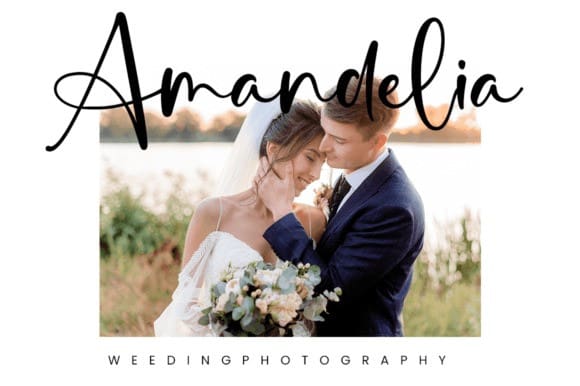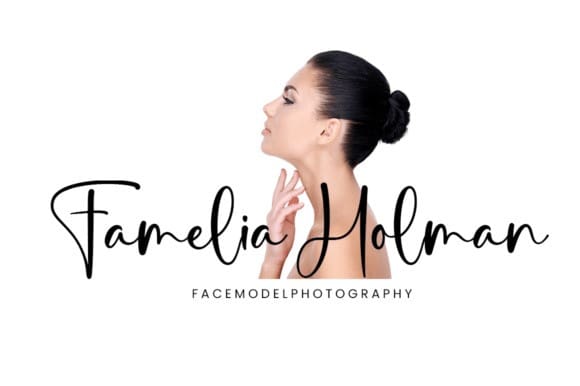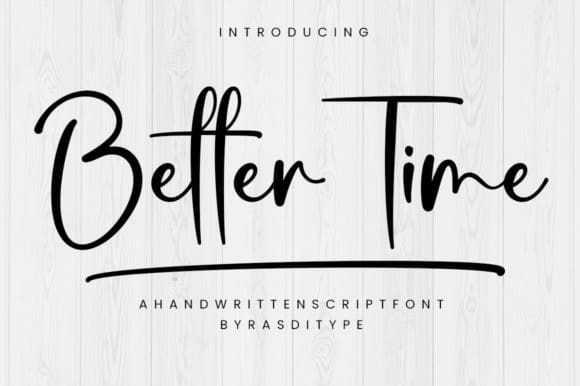
Better Time Font
Better Time Font, is a lovely and delicate script font that exudes elegance and class. This font was particularly crafted for those who need a beautiful and refreshing look to their designs.